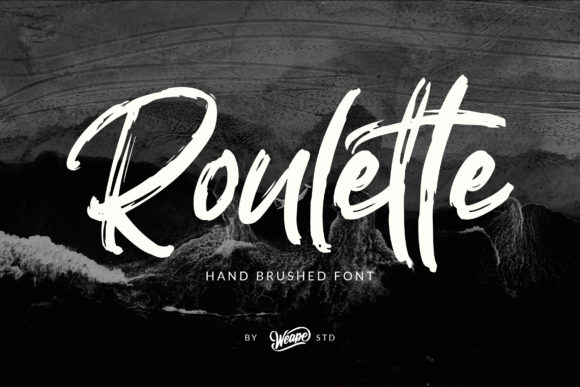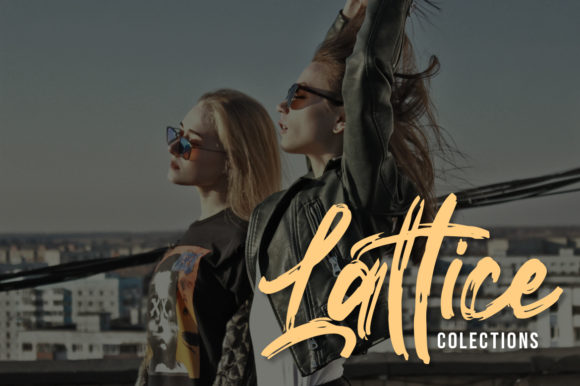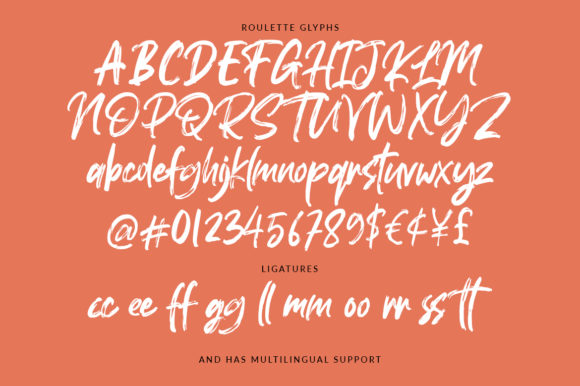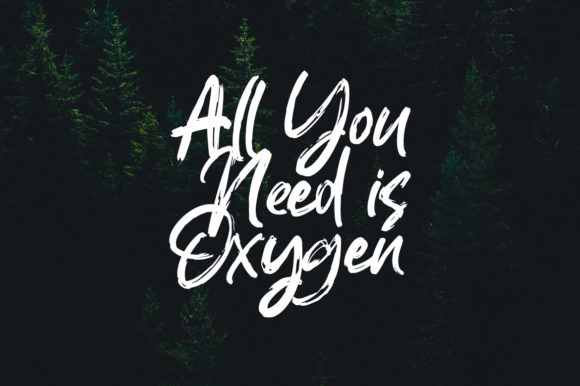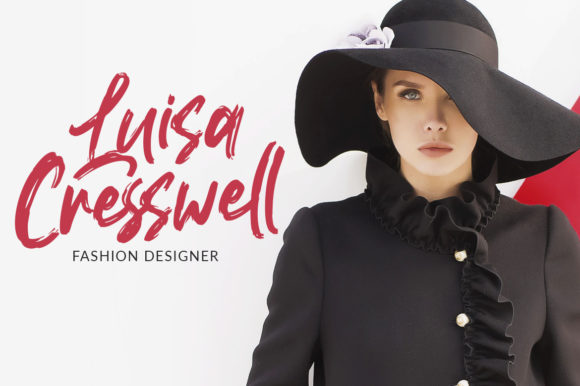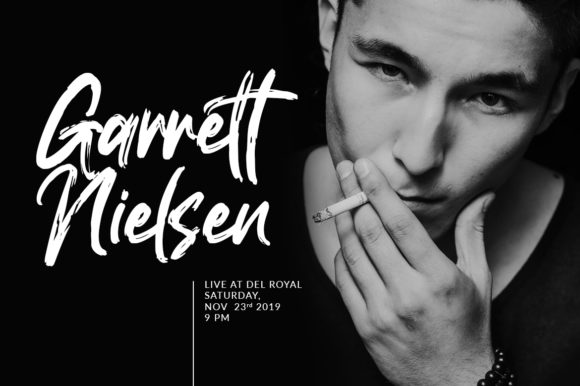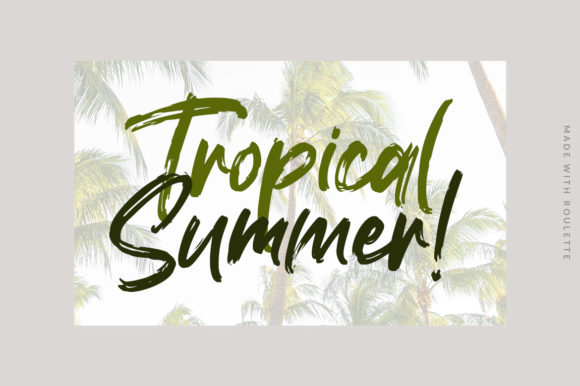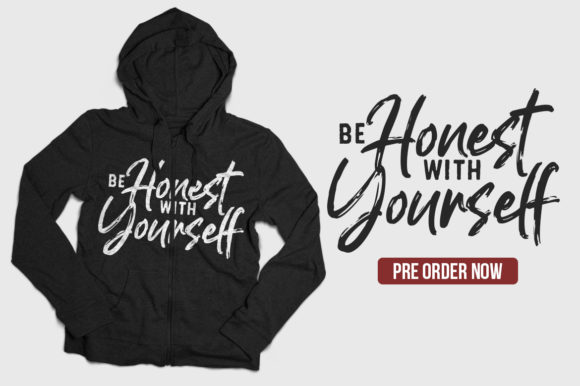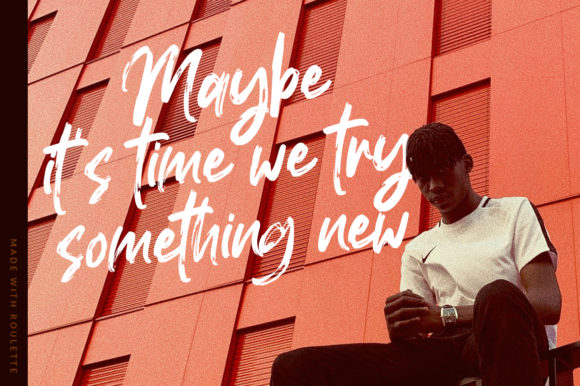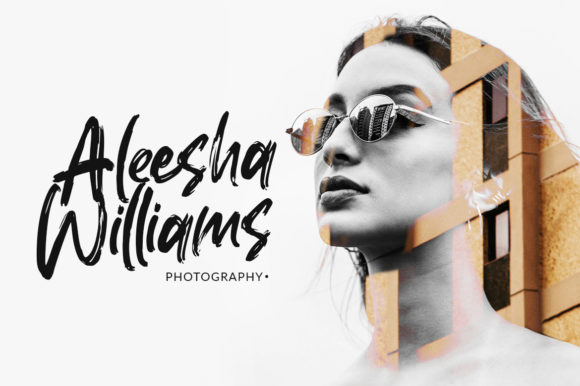
HomeScript FontsRoulette Font Script Fonts Roulette Font FacebookXPinterestWhatsApp Roulette Font Poster 2 Roulette Font Poster 3 Roulette Font Poster 4 Roulette Font Poster 5 Roulette Font Poster 6 Roulette Font Poster 7 Roulette Font Poster 8 Roulette Font Poster 9 Roulette Font Poster 10 Roulette Font Poster 11 About Roulette Font Roulette is a script font with natural rough dry brush strokes. Get inspired by its contemporary coolness! DOWNLOAD ON CREATIVE FABRICAThis font is sold and delivered by Creative Fabrica. Font Canyon may earn a commission if you buy through this link. People also explored Lovined Font Camar Mandi Font Marksville Font Zeitoon Font Bright Hearts Font White and Black Campfire Mug Mockup Hunters Font Athena Font Royal Textured Font 264 0 TagsRoulette Font Previous articleBalleho FontNext articleBestlecio Font LEAVE A REPLY Cancel reply Comment: Please enter your comment! Name:* Please enter your name here Email:* You have entered an incorrect email address! Please enter your email address here Website: Save my name, email, and website in this browser for the next time I comment. Personal Use Free Whitelight Personal Use Free Read more about this font Adlanta Personal Use Free Read more about this font Hello December Personal Use Free Read more about this font Fibon Personal Use Free Read more about this font BLOG Transform Your Website: Elevate Your Typography with 7 Best Web Font Generators Are you ready to transform your website's typography from ordinary to extraordinary? Great! Today, we're diving into the world of web font generators, which... Top 7 Google Fonts Alternatives for Faster and Privacy-Friendly Web Design (2025) Modern Sans-Serif Fonts That Brands Love in 2025 Using Fonts in Digital Marketing: Tips to Strengthen Your Brand Identity